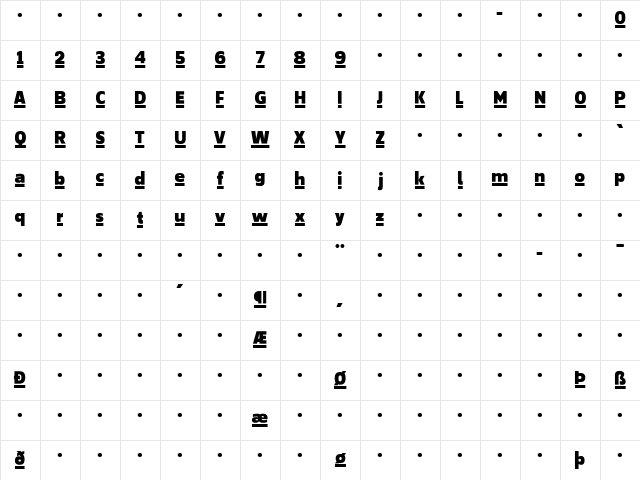
GovanOne-RegularLined Regular
| Foundry | FSI |
| Designer | Ole Schaefer, Erik Spiekermann |
Design Context for GovanOne-RegularLined Typeface
GovanOne-RegularLined offers clean, dependable letterforms without strong stylistic allegiance, making it a practical choice for designers who need flexibility.